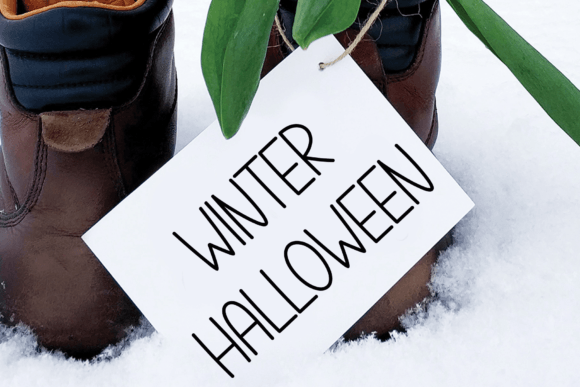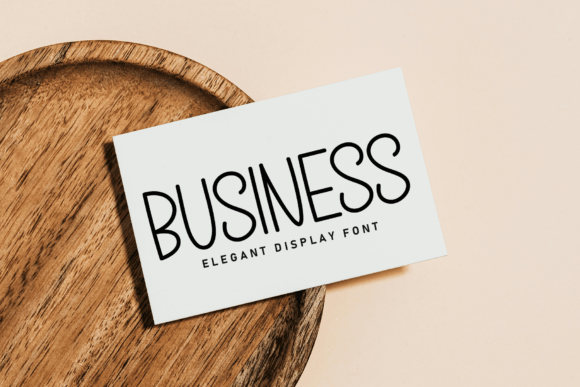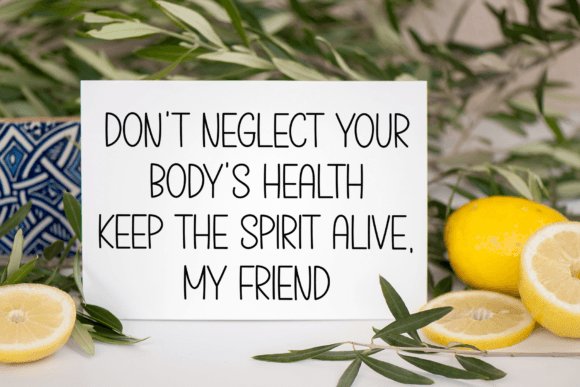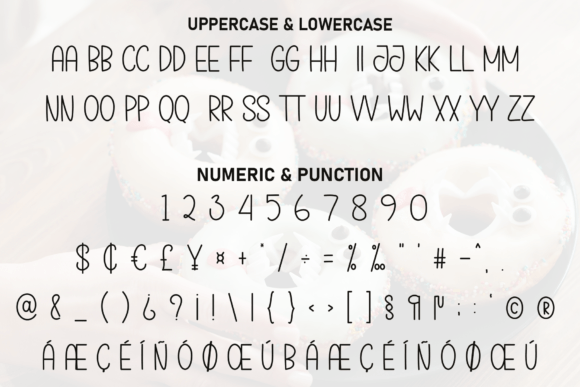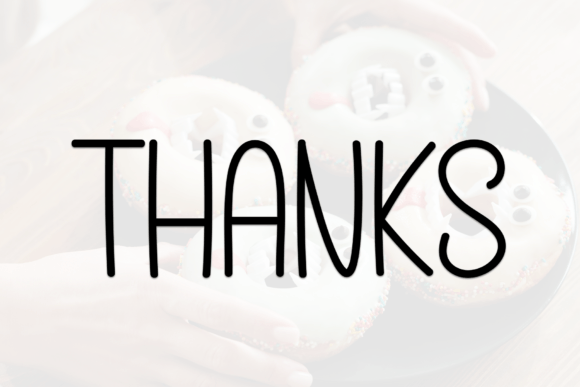
Happy Halloween Font: The Perfect Addition to Your Spooky Season Designs
As the spookiest time of the year approaches, designers and crafters are on the lookout for the perfect font to add a touch of eerie elegance to their Halloween-themed projects. Look no further than the Happy Halloween Font, a beautiful handwritten font that is sure to cast a spell on your audience.
A Neat and Beautiful Handwritten Font
The Happy Halloween Font is a neat and beautiful handwritten font that is described by an elegant touch, making it perfect for your favorite projects. Its incredibly distinct and timeless style is sure to fall in love with, and it’s ideal for creating spectacular designs that will leave a lasting impression.
What Makes Happy Halloween Font So Special?
So, what sets the Happy Halloween Font apart from other fonts? Here are just a few reasons why it’s a must-have for designers and crafters:
- Elegant Touch: The Happy Halloween Font has an elegant touch that makes it perfect for a wide range of projects, from spooky Halloween designs to more elegant and sophisticated projects.
- Distinct and Timeless Style: The font’s incredibly distinct and timeless style ensures that your designs will stand out from the crowd and remain relevant for years to come.
- Handwritten Look: The Happy Halloween Font has a beautiful handwritten look that adds a personal touch to your designs, making them more relatable and engaging.
The Happy Halloween Font is perfect for a wide range of projects, including:
- Halloween-themed designs: From spooky posters and flyers to haunted house invitations and Halloween party decorations, this font is perfect for creating eye-catching and effective designs.
- Crafting projects: Whether you’re creating handmade cards, scrapbooking pages, or other crafting projects, the Happy Halloween Font is a great addition to your design toolkit.
- Digital designs: From social media graphics to blog posts and website designs, this font is perfect for creating visually appealing and engaging digital designs.